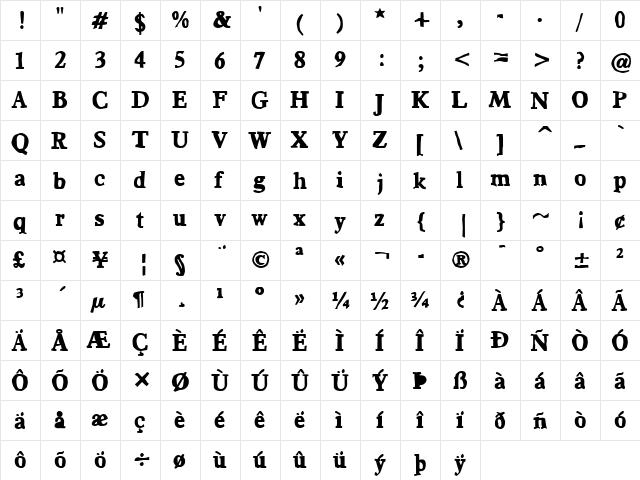
Bountiful Bold
Design Context for Bountiful Typeface
Bountiful offers clean, dependable letterforms without strong stylistic allegiance, making it a practical choice for designers who need flexibility. The heavy weight commands attention and anchors typographic hierarchies.